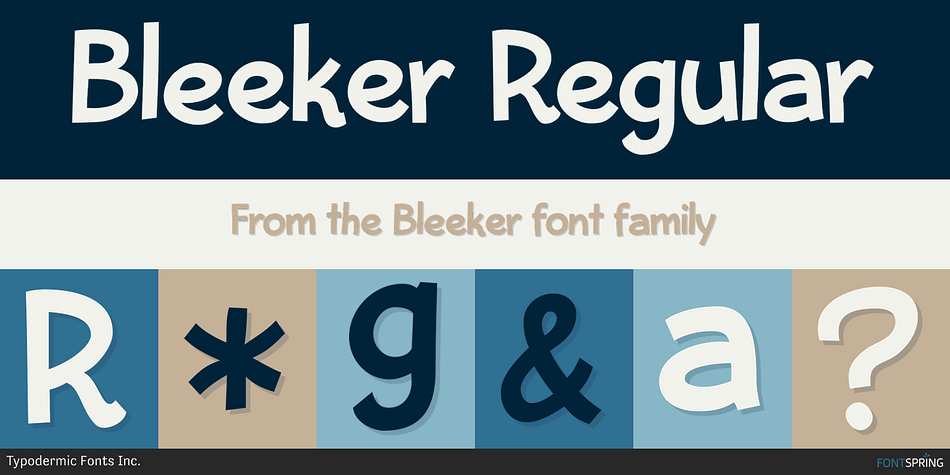
Bleeker Regular
Bleeker is a comic font published by Typodermic Fonts Inc.
Are you ready to infuse some laid-back vibes into your design game? Look no further than Bleeker! This hand-lettered typeface is like a breath of fresh air, with casual letterforms and relaxed line-treatment that make your message feel effortlessly conversational.
But don’t let the carefree nature of Bleeker fool you—this font is also smart and sophisticated. Thanks to custom letter pairings, it looks totally natural in OpenType-savvy applications. And let’s be honest—who doesn’t want to look natural and effortless while still being totally cool?
So if you’re yearning for a typeface that feels like a sunny day and a good conversation rolled into one, give Bleeker a try. It’s the perfect blend of whimsy and sincerity that your designs have been craving.